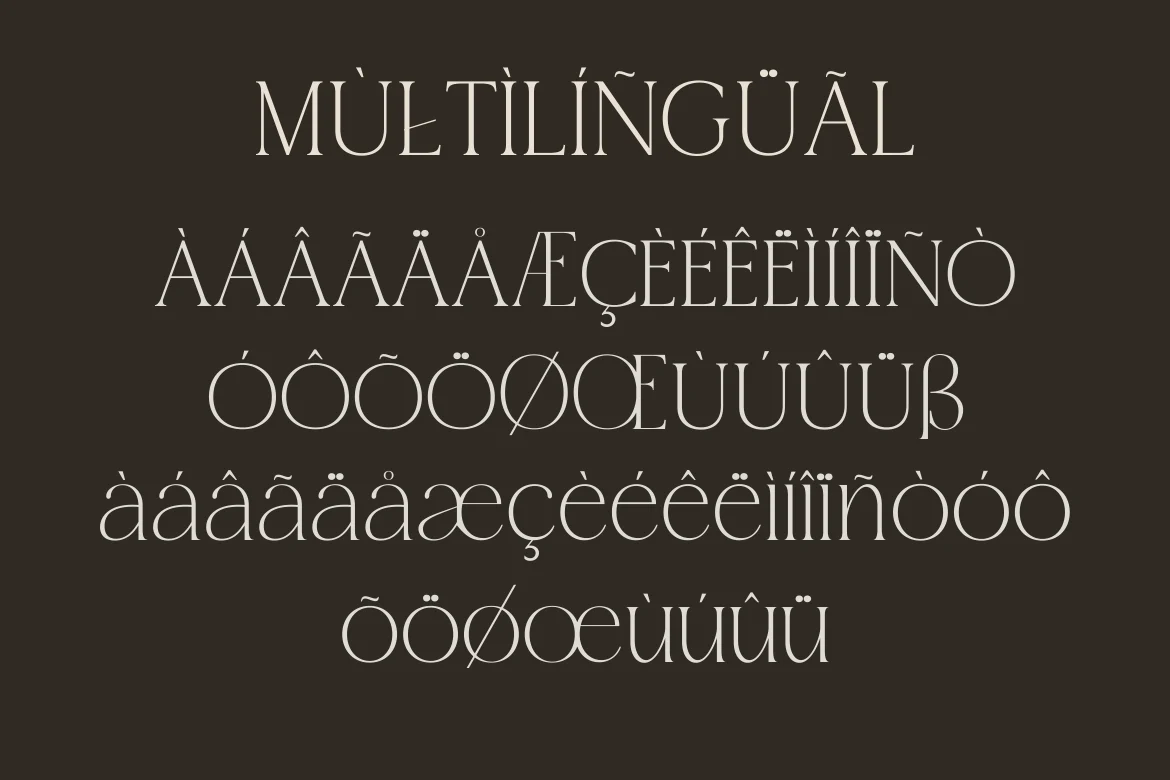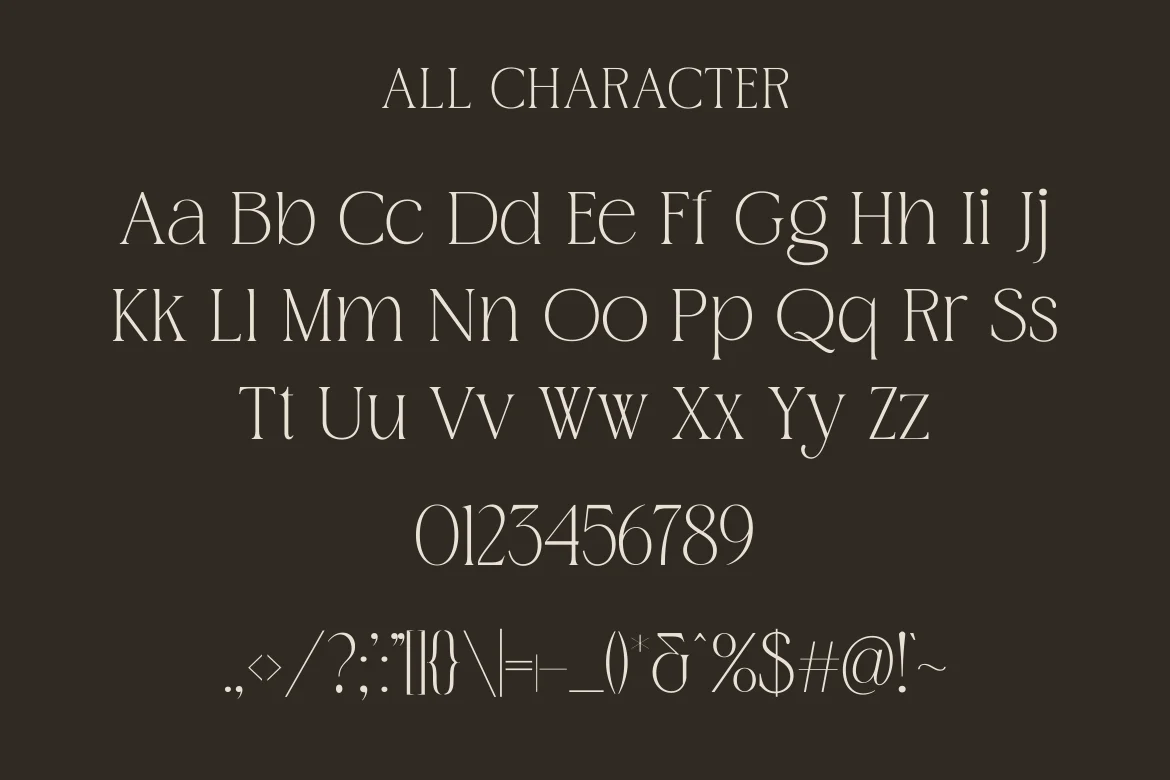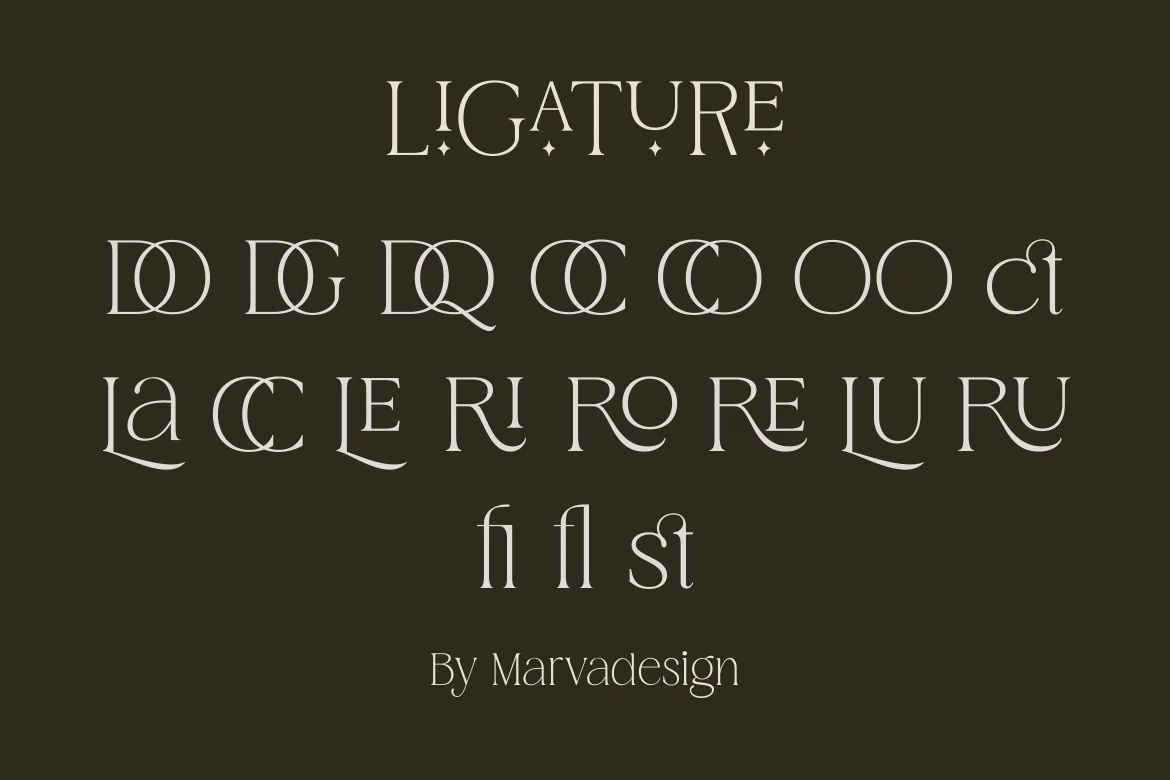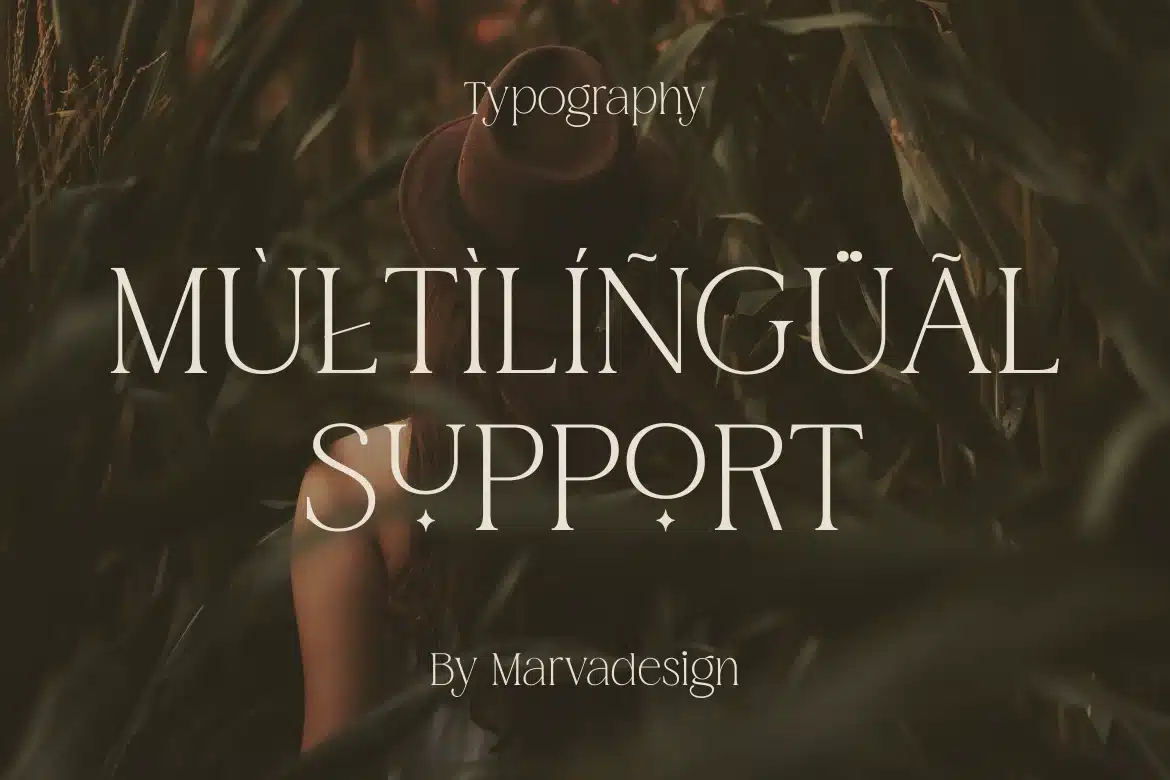
magive – A Modern Display Font
Introducing our new product magive Font - Modern Font
magive Font** - Modern Font is a bold and authentic display font. The font is suitable for any branding project like logo,Template Design, Product and many more. outstanding in a wide range of contexts.
- Alternate